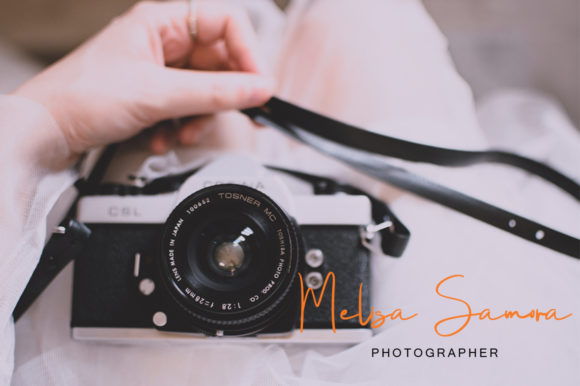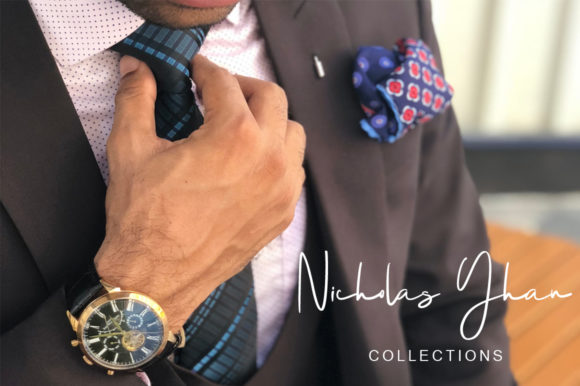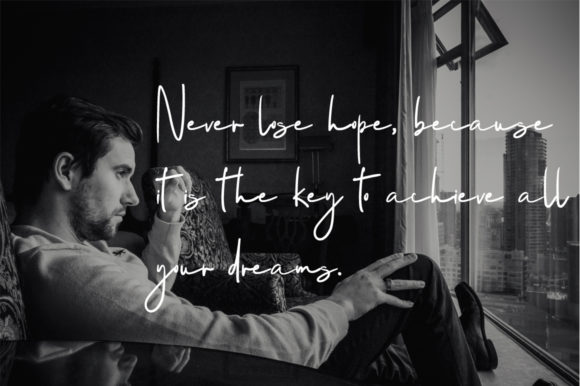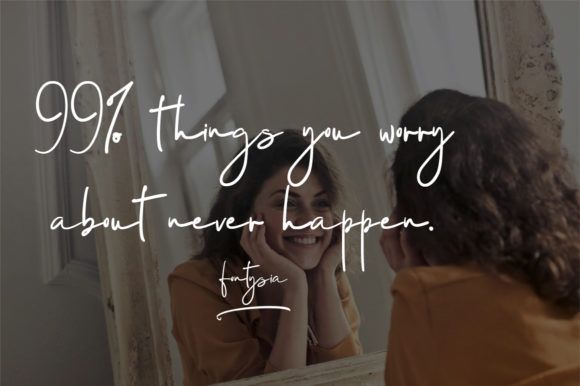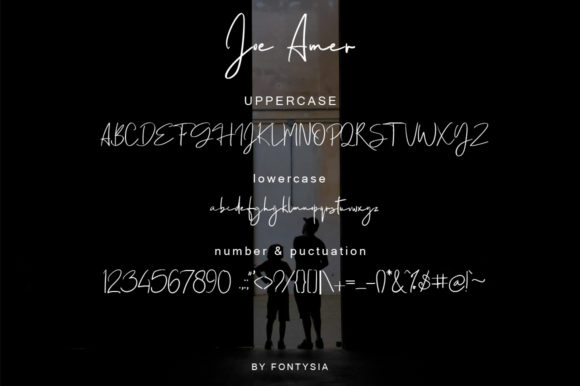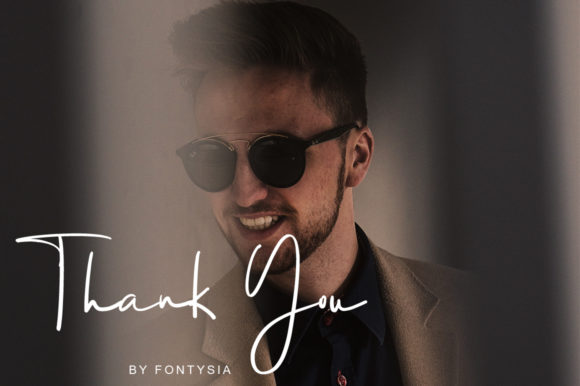
Introduction to Joe Amer Font
Have you ever stared at a blank page, struggling to find the perfect font to bring your creative project to life? For many designers, this is a familiar frustration. But what if I told you there’s a stunning solution waiting to be discovered?
Meet the Joe Amer Font, a modern handwritten font that’s sure to captivate your senses. With its natural lettering style, this font is the perfect design resource for anyone looking to add a touch of elegance to their work. Whether you’re working on a high-profile project or just a personal creative endeavor, the Joe Amer Font is sure to deliver.
Key Features of Joe Amer Font
- Unique characteristics, such as bold lines and elegant curves, make it an ideal choice for creative projects
Honest Review: Joe Amer Font
I recently stumbled upon the Joe Amer Font, and I must say it’s been a game-changer for my design projects. As a designer, I’m always on the lookout for high-quality resources that can elevate my creative work. The Joe Amer Font delivers on this promise, offering a wide range of stylish and modern fonts that are perfect for any design project.
One of the standout features of this font is its versatility. I’ve used it for a variety of projects, from logo designs to digital artwork, and it’s always looked great. The transparent background feature is also a major plus, making it easy to customize and integrate into any design.
- Wide range of stylish and modern fonts
- Perfect for logo designs, digital artwork, and more
- Transparent background feature for easy customization
- May not be suitable for very small font sizes
- Some users may find the font family too extensive
Overall, I’m thoroughly impressed with the Joe Amer Font. It’s a high-quality design resource that’s perfect for any creative project. I highly recommend it to fellow designers looking for a reliable and versatile font solution.
Tips for Getting the Most Out of Joe Amer Font
To get the most out of the Joe Amer Font, experiment with different font sizes, colors, and combinations to create unique and eye-catching designs.
The Joe Amer Font is ideal for:
Alternatives to Joe Amer Font
Josefin Sans
Josefin Sans is a modern sans-serif font that is perfect for creative projects requiring a clean and minimalistic look. It’s ideal for use in logos, brochures, and other design materials that need a high-quality, transparent background. When to use: For modern and elegant designs.
Josefin Sans compares to Joe Amer Font in its clean and minimalist design, but it has a more modern feel and a larger character set. It’s a great alternative for designers who want a free download with high quality.
Lato is a sans-serif font that’s great for use in creative projects, especially when a high-quality, transparent background is required. It’s perfect for logos, websites, and other design materials that need a clean and modern look. When to use: For modern and clean designs.
Lato compares to Joe Amer Font in its clean design, but it has a more rounded feel and a larger character set. It’s a great alternative for designers who want a free download with a high-quality, transparent background.
Montserrat is a sans-serif font that’s perfect for use in creative projects, especially when a high-quality, transparent background is required. It’s ideal for logos, brochures, and other design materials that need a clean and modern look. When to use: For modern and urban designs.